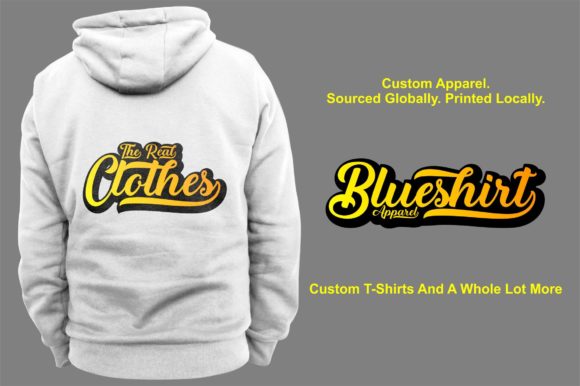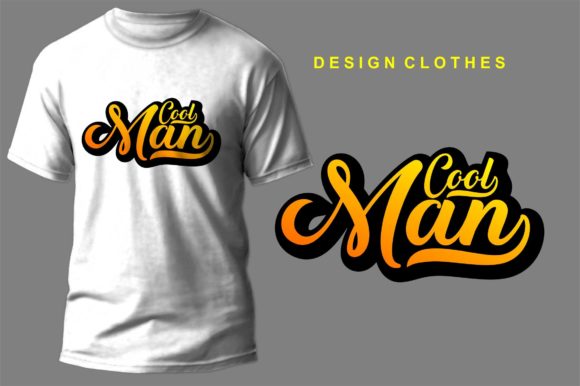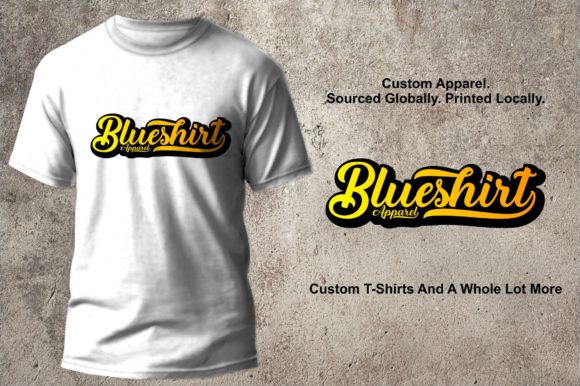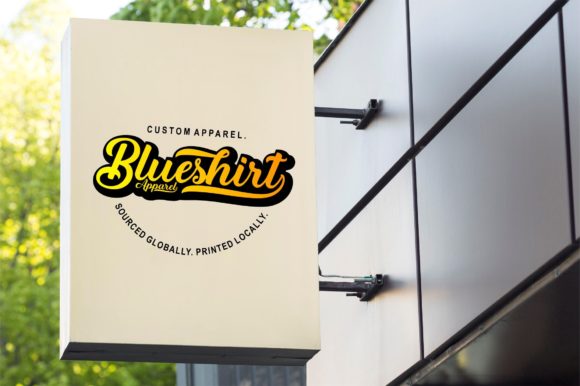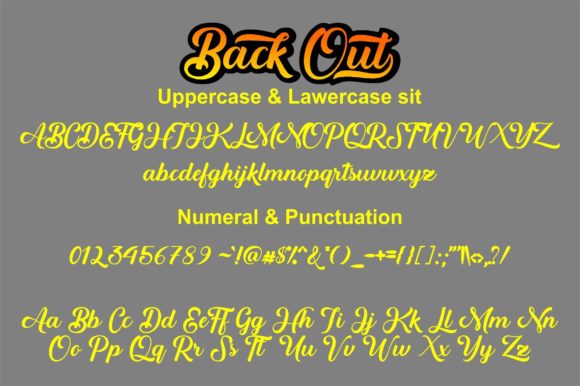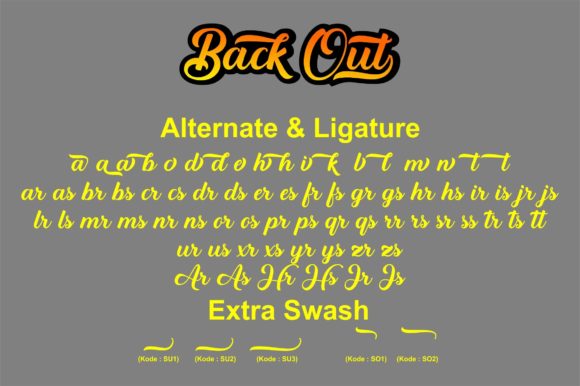
Introducing Backout Font: Elevate Your Designs with Elegance
Are you on the hunt for a font that adds a touch of sophistication and elegance to your designs? Look no further than Backout Font, a dazzling script font that is sure to become a staple in your font library. With its neat craftsmanship and highly detailed features, Backout Font is the perfect addition to any project, regardless of the topic or theme.
What Makes Backout Font Special?
Backout Font is not just any ordinary font. It is a meticulously designed script font that boasts a level of detail and refinement that sets it apart from other fonts. Its elegant and flowing lines make it perfect for a wide range of applications, from creative projects such as posters, logos, and branding to more practical uses like signage and packaging.
One of the standout features of Backout Font is its PUA (Private Use Area) encoding. This means that users can access all glyphs and swashes with ease, giving you greater flexibility and creative control over your designs. With PUA encoding, you can unlock the full potential of Backout Font and take your designs to the next level.
Backout Font is incredibly versatile, making it suitable for a wide range of design applications. Whether you’re working on a:
- Logo or branding project, Backout Font’s elegant lines and curves can help create a lasting impression.
- Poster or flyer, Backout Font’s script style can add a touch of sophistication and glamour.
- Website or blog, Backout Font’s legibility and readability make it perfect for headings and titles.
- Stationery or packaging design, Backout Font’s unique style can help your product stand out.
Why Choose Backout Font?
With so many fonts available, why choose Backout Font? Here are just a few reasons why designers and crafters are falling in love with this amazing script font:
- Elegance and sophistication: Backout Font adds a touch of class and refinement to any design.
- Versatility: Suitable for a wide range of design applications, from creative projects to practical uses.
- Easy to use: PUA encoding makes it easy to access all glyphs and swashes.
- Highly detailed: Neatly crafted with attention to detail, ensuring a professional finish.
Tips for Using Backout Font
To get the most out of Backout Font, here are a few tips to keep in mind:
- Experiment with swashes: Use the PUA encoded glyphs and swashes to add unique touches to your designs.
- Pair with complementary fonts: Backout Font works well with a range of fonts, so don’t be afraid to experiment with different combinations.
- Adjust font sizes: Play with different font sizes to create visual interest and hierarchy in your designs.
| Font Name | Backout Font |
| Author | RGB Studio |
In conclusion, Backout Font is a dazzling script font that is sure to elevate your designs to new heights. With its elegant lines, highly detailed features, and PUA encoding, Backout Font is the perfect addition to any font library. Whether you’re a designer, crafter, or DIY enthusiast, Backout Font is a must-have font that will help you create stunning designs that leave a lasting impression.